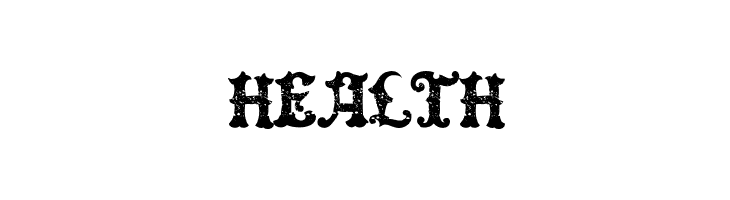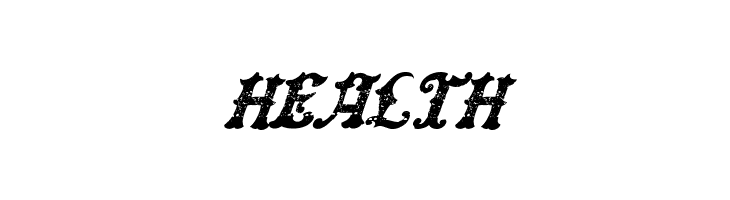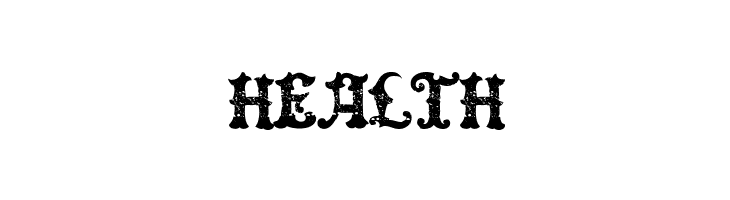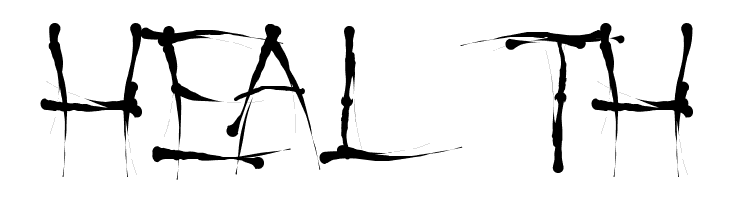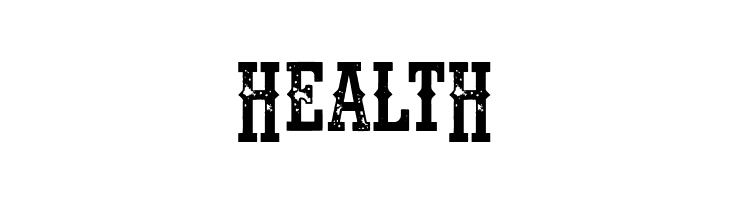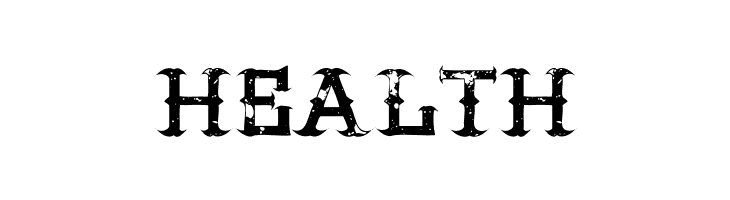
A bold, decorative font with a distressed, vintage appearance.
A bold, decorative, and distressed italic font with a vintage flair.
A bold, decorative font with a distressed, vintage appearance and whimsical detailing.
A distressed, grungy font with erratic, splattered strokes and a chaotic aesthetic.
A bold, distressed font with a rugged, vintage appearance.
A bold, distressed slab serif font with a rugged, vintage appearance.
A bold, distressed font with a rugged, western-inspired aesthetic.
A bold, distressed Western-style font with a vintage, rugged appearance.
A bold, dripping font ideal for horror and spooky themes.
A bold, graffiti-style font with a distressed, urban look.